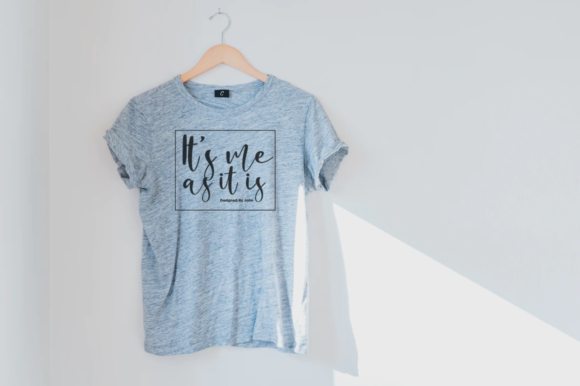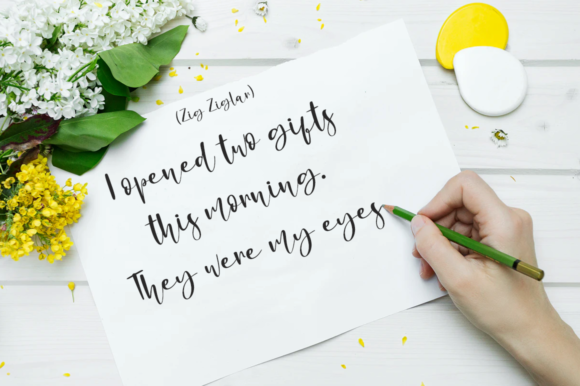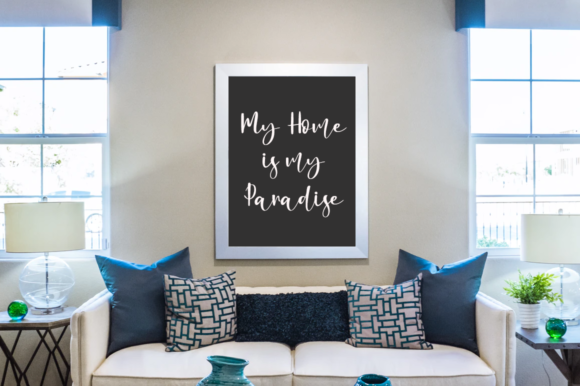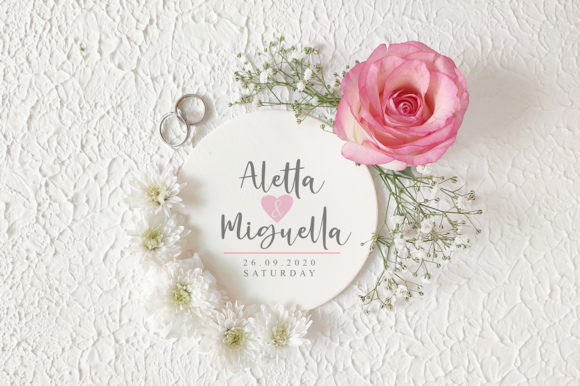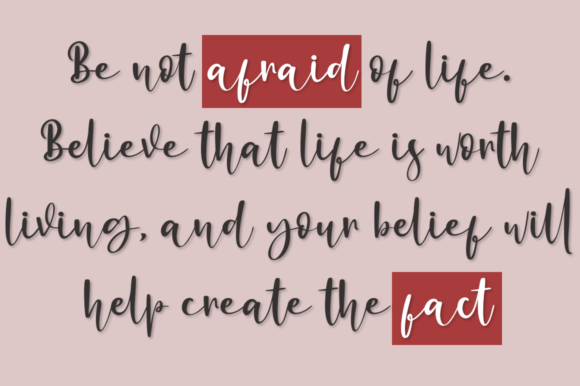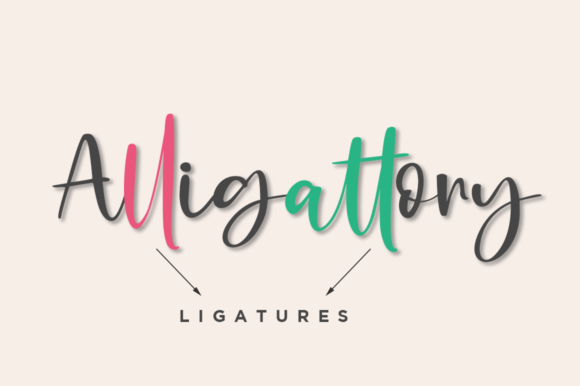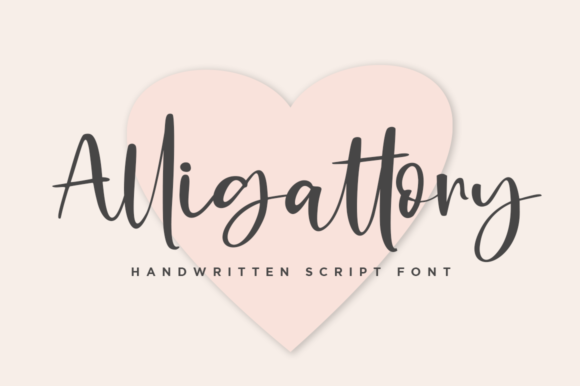
Introducing Alligattory Font: Elevate Your Designs with Elegance
Are you tired of using the same old fonts in your designs? Look no further! Alligattory Font is here to revolutionize your creative projects with its touch of elegance and magical handwritten style. In this article, we’ll dive into the world of Alligattory Font, exploring its features, benefits, and uses, and why it’s a must-have for designers and crafters.
What is Alligattory Font?
Alligattory is a carefully crafted handwritten font that exudes elegance and sophistication. Its unique and magical style makes it perfect for a wide range of design projects, from branding and advertising to packaging and digital media. Whether you’re a professional designer or a crafty DIY enthusiast, Alligattory Font is sure to impress.
Key Features of Alligattory Font
• Handwritten with love: Alligattory Font is meticulously handcrafted with attention to detail, giving it a personal and human touch.
• Elegant and sophisticated: The font’s elegant style makes it perfect for high-end designs, luxury brands, and sophisticated projects.
• Versatile: Alligattory Font can be used in various contexts, from busy backgrounds to standalone headlines.
• Magical: The font’s unique and whimsical style adds a touch of magic to any design.
Benefits of Using Alligattory Font
So, why should you choose Alligattory Font for your next design project? Here are just a few benefits:
• Add a touch of elegance: Alligattory Font instantly elevates your designs with its sophisticated and refined style.
• Stand out from the crowd: The font’s unique and magical style ensures your designs will stand out in a crowded marketplace.
• Perfect for branding: Alligattory Font is ideal for creating memorable brand identities that exude luxury and sophistication.
Using Alligattory Font in Your Designs
Alligattory Font is incredibly versatile and can be used in a variety of design projects, including:
• Branding and advertising: Create stunning logos, business cards, and ad campaigns with Alligattory Font.
• Packaging design: Add a touch of elegance to your product packaging with this beautiful font.
• Digital media: Use Alligattory Font in your social media graphics, blog posts, and website designs.
• Crafting and DIY projects: Add a personal touch to your handmade crafts, such as journals, cards, and scrapbooking.
Tips and Tricks for Getting the Most Out of Alligattory Font
Here are some expert tips for using Alligattory Font in your designs:
• Experiment with colors: Try pairing Alligattory Font with different colors to create unique and eye-catching combinations.
• Play with textures: Add texture to your designs by combining Alligattory Font with different backgrounds and patterns.
• Mix and match: Combine Alligattory Font with other fonts to create visually interesting and dynamic designs.
Author Haksen
In conclusion, Alligattory Font is a magical handwritten font that adds a touch of elegance and sophistication to any design project. Its versatility, unique style, and ease of use make it a must-have for designers and crafters. Whether you’re looking to create stunning branding, beautiful packaging, or eye-catching digital media, Alligattory Font is the perfect choice. So why wait? Download Alligattory Font today and elevate your designs to the next level!